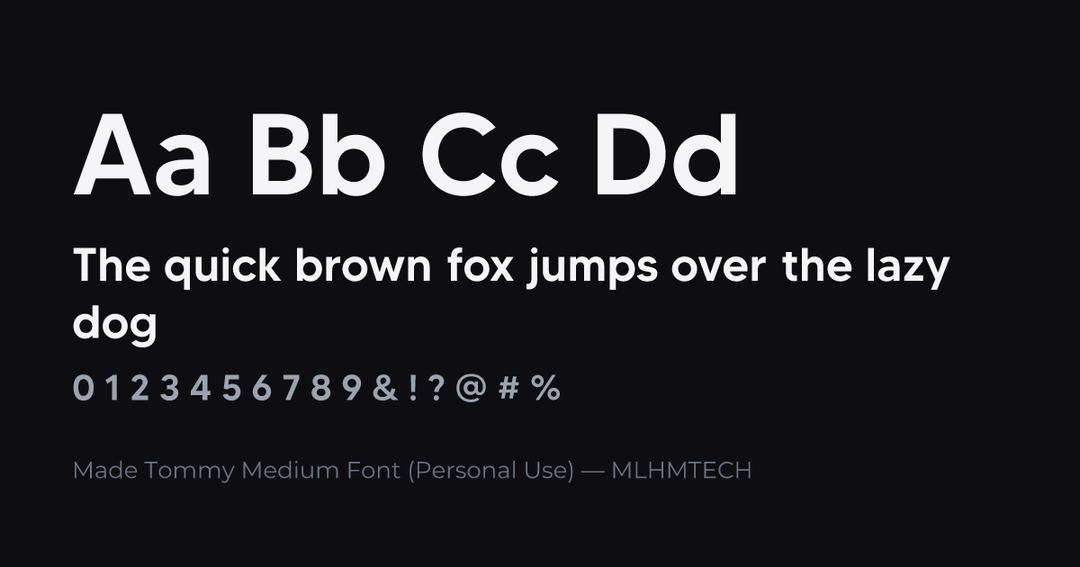
Made Tommy Medium Font (Personal Use)
Made Tommy Medium is a clean, modern sans-serif font ideal for logos, branding, and display use. This OTF file is free for personal projects.
Made Tommy Medium is a versatile sans-serif typeface that strikes a balance between geometric precision and humanist warmth. Its medium weight makes it highly legible at various sizes, from headlines to body text. The font's clean lines and contemporary feel make it a great choice for branding, logo design, packaging, and digital media.